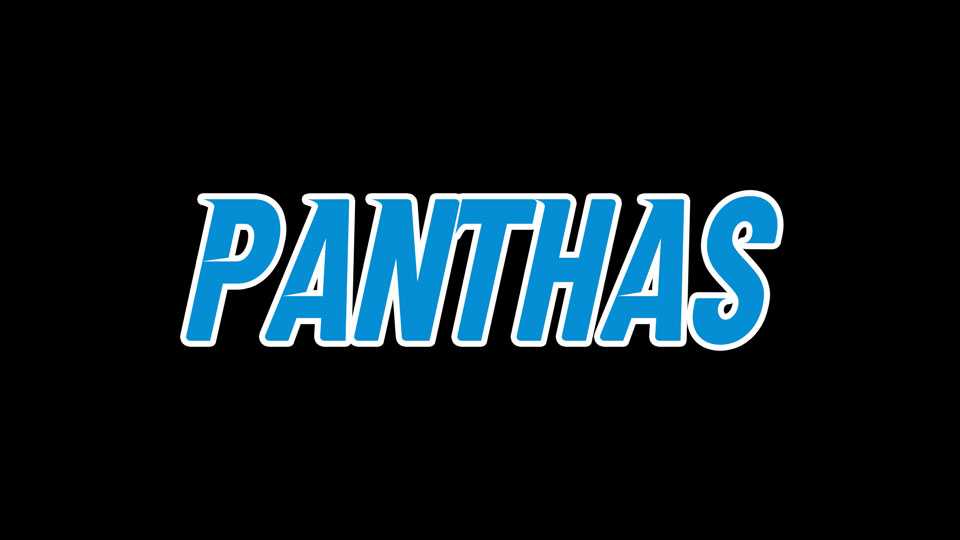
Download Panthas font, a dynamic sport typeface inspired by the bold spirit of the Carolina Panthers. It features strong, angular letterforms with sleek lines and powerful curves.
Designer: Rob Hindley